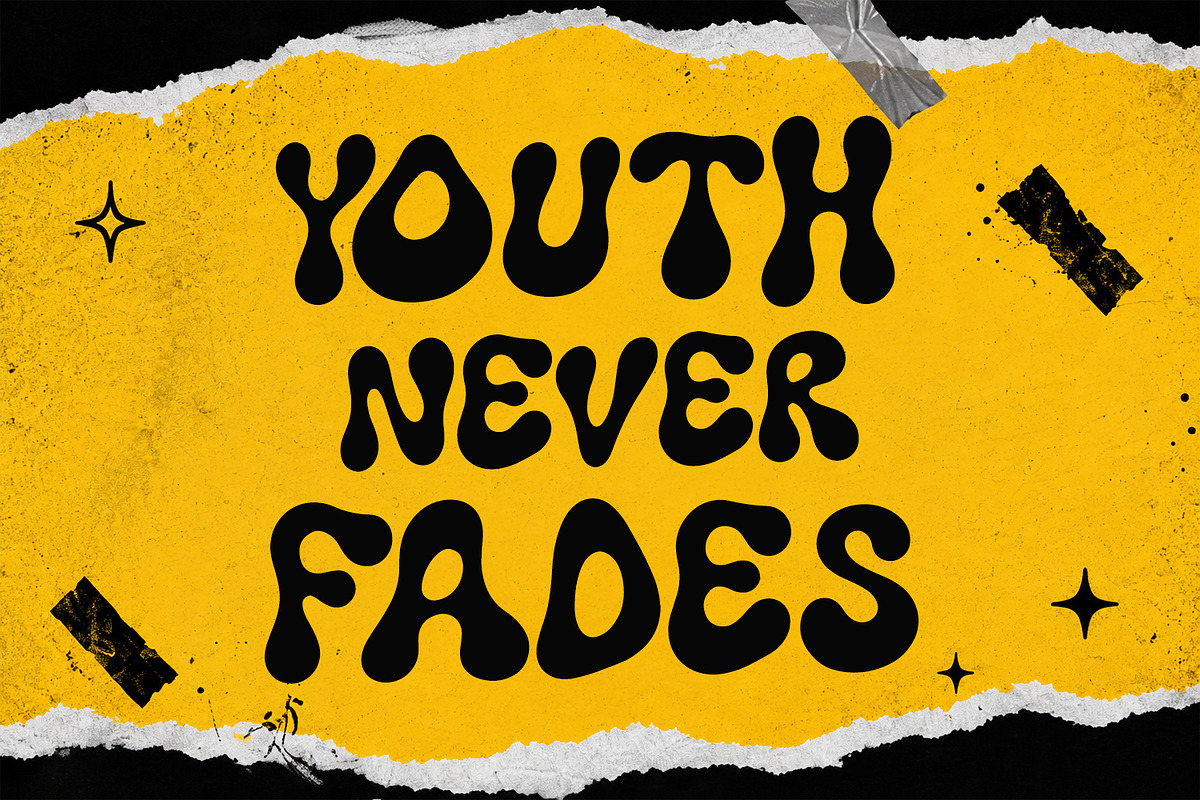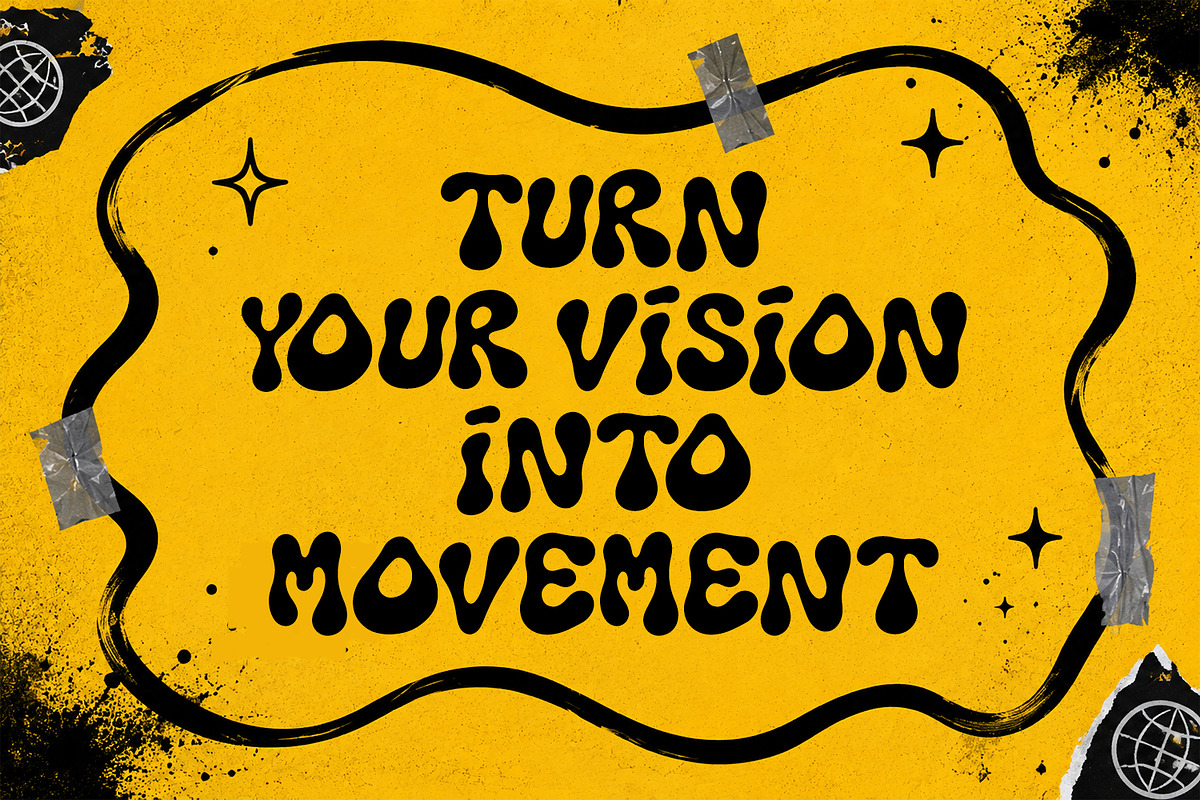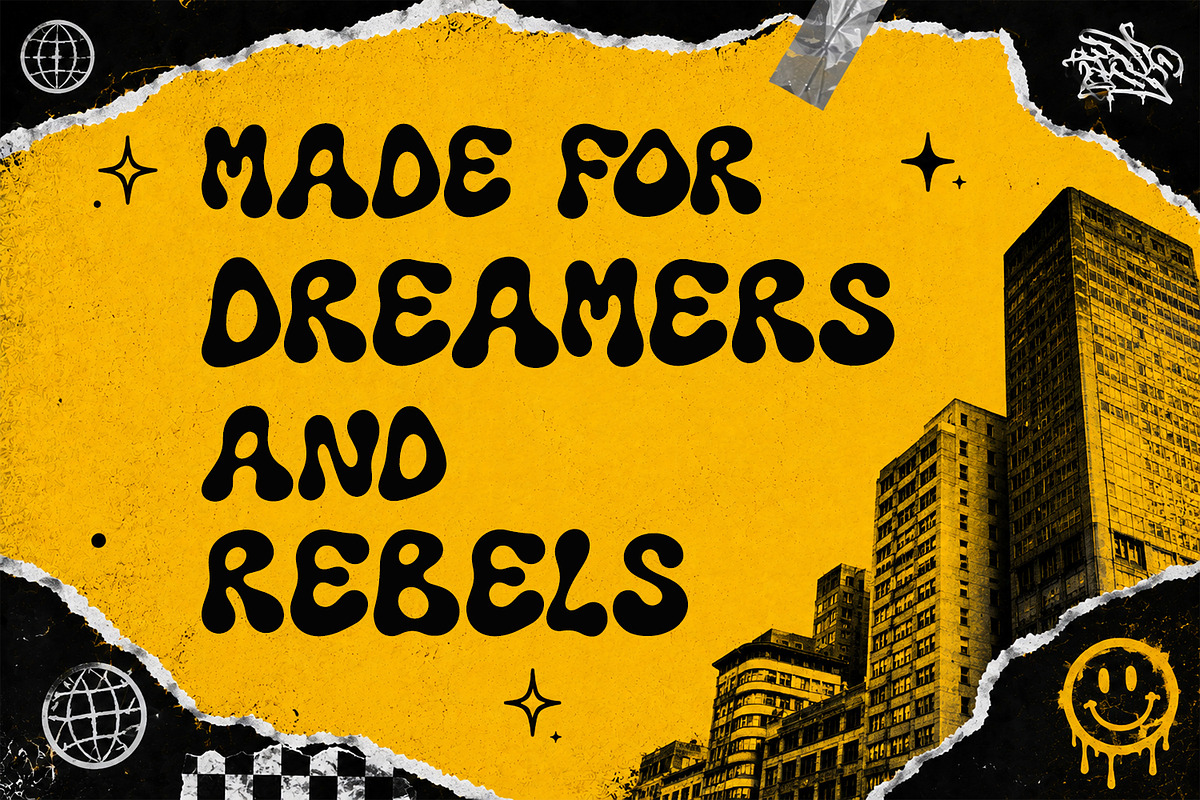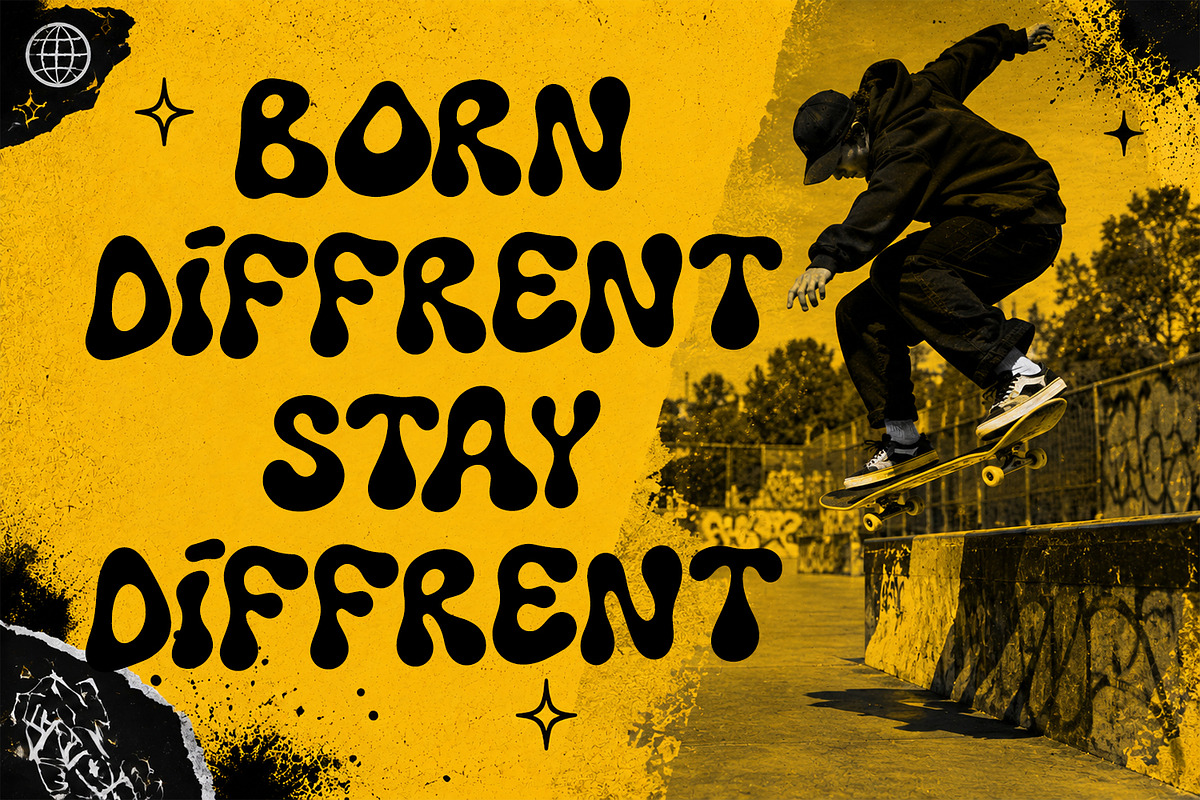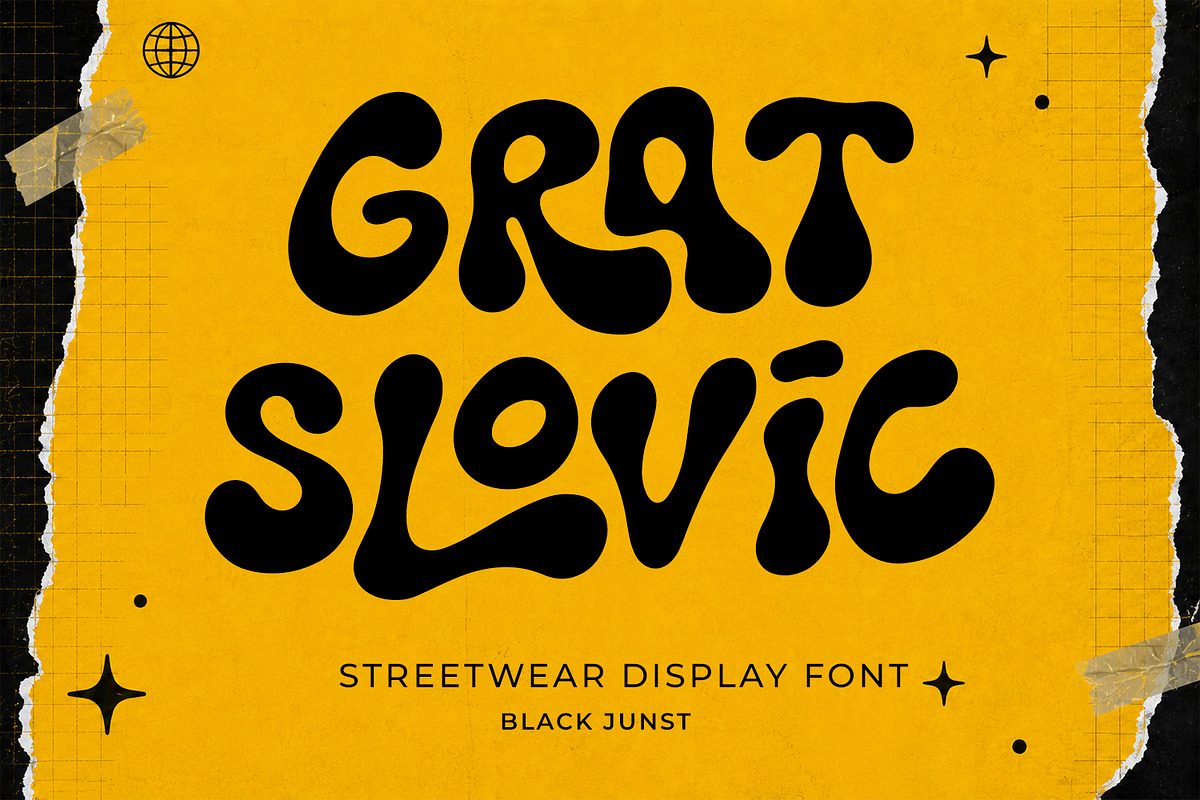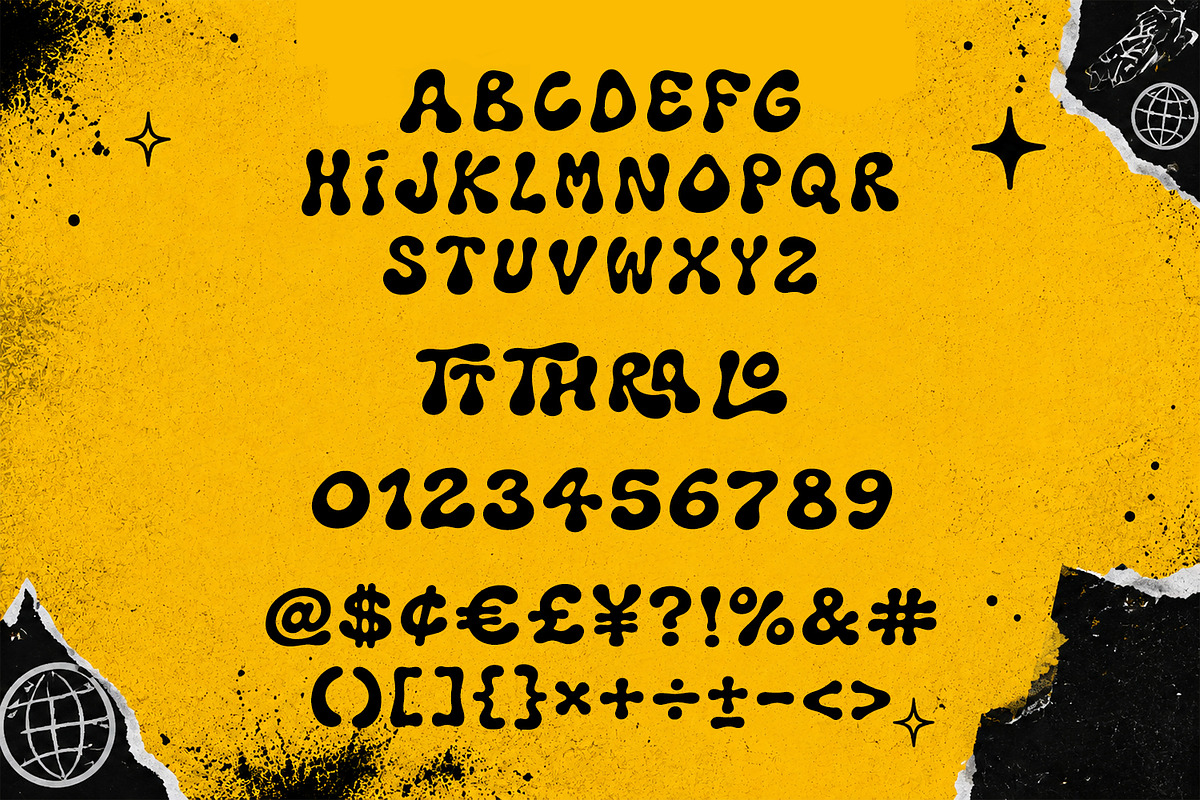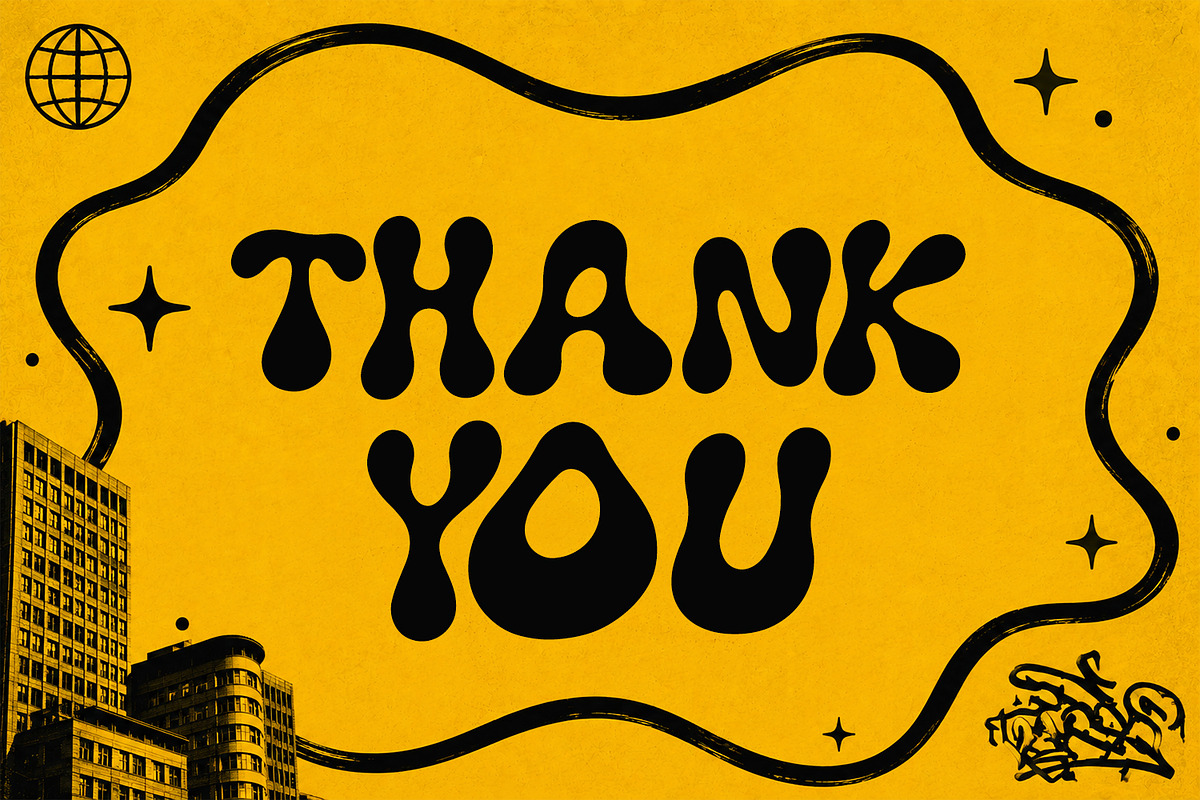
Grat Slovic – Groovy Streetwear Font
Grat Slovic – Groovy Streetwear Display Font
Grat Slovic is a bold groovy display font inspired by 70s retro aesthetics, modern streetwear culture, funky branding, and expressive typography. Featuring chunky organic curves, playful letterforms, and eye-catching shapes, this typeface is designed to make every headline stand out.
Whether you're creating fashion branding, apparel designs, music posters, packaging, social media graphics, or bold logo concepts, Grat Slovic delivers a unique personality that instantly grabs attention.
Its handcrafted style combines vintage groovy vibes with a contemporary streetwear feel, making it perfect for designers who want memorable typography with strong visual impact.
Streetwear Brands
Fashion Logos
Clothing Labels
Album Covers
Music Posters
Festival Graphics
Editorial Headlines
Stickers
T-Shirt Design
Social Media Posts
Retro Branding
Funky Advertising
Creative Projects
Bring bold retro energy into your next project with Grat Slovic, the ultimate groovy display font for designers who want typography that gets noticed.